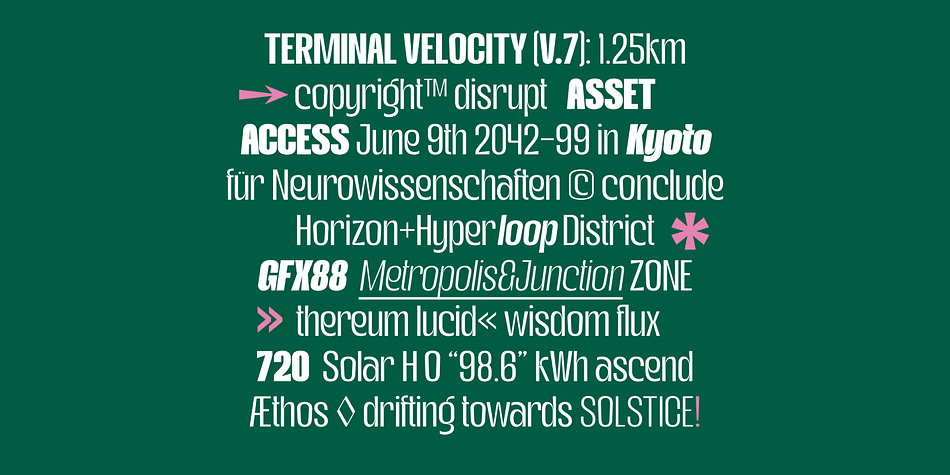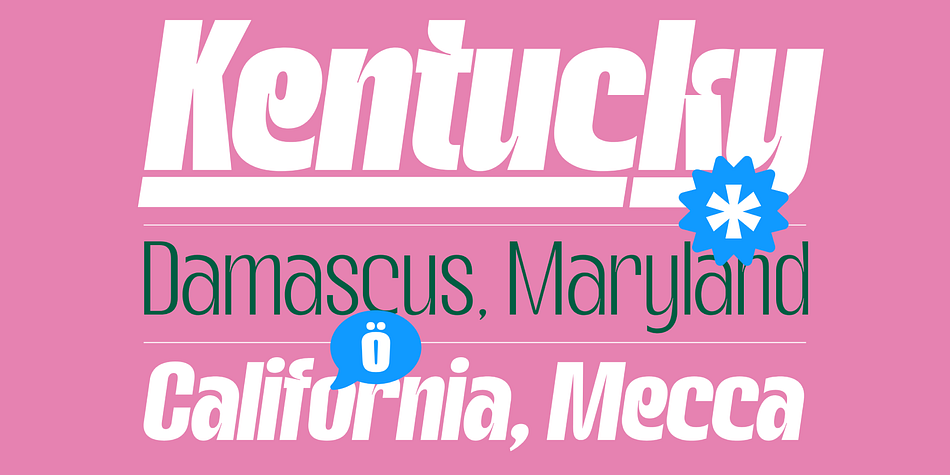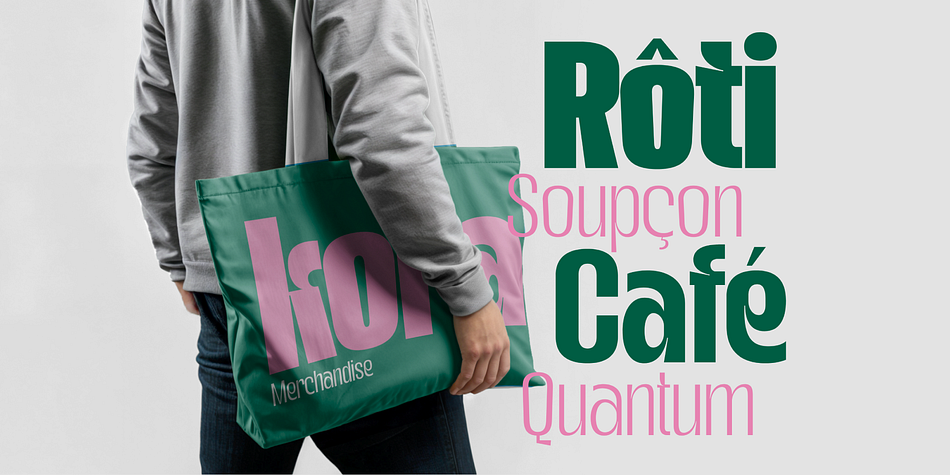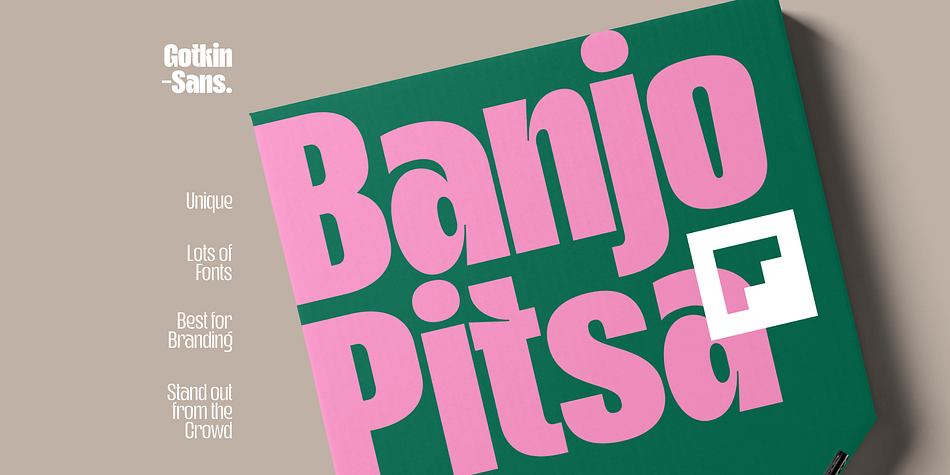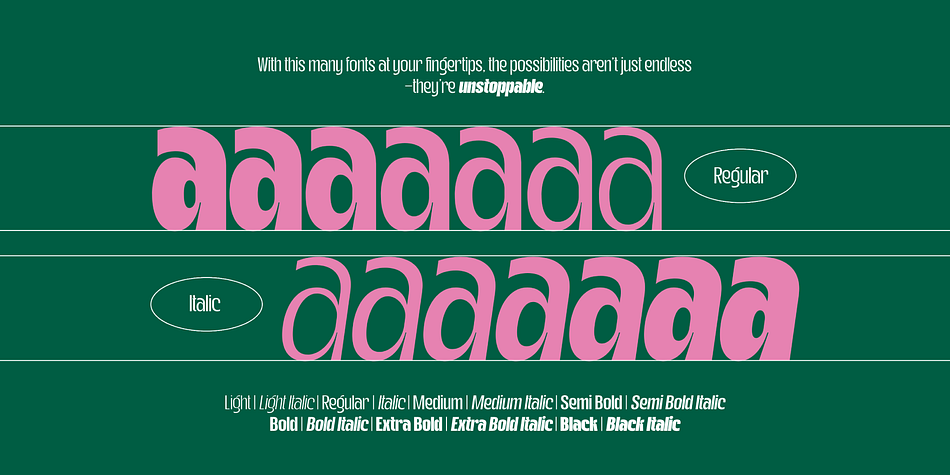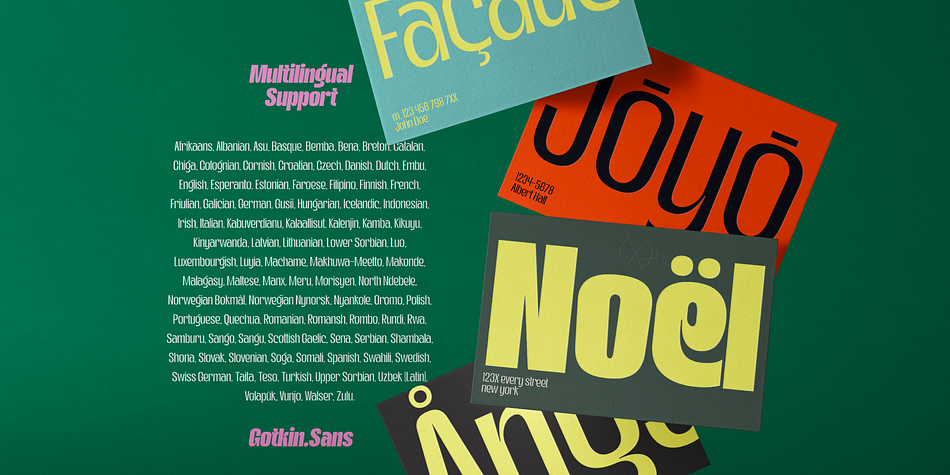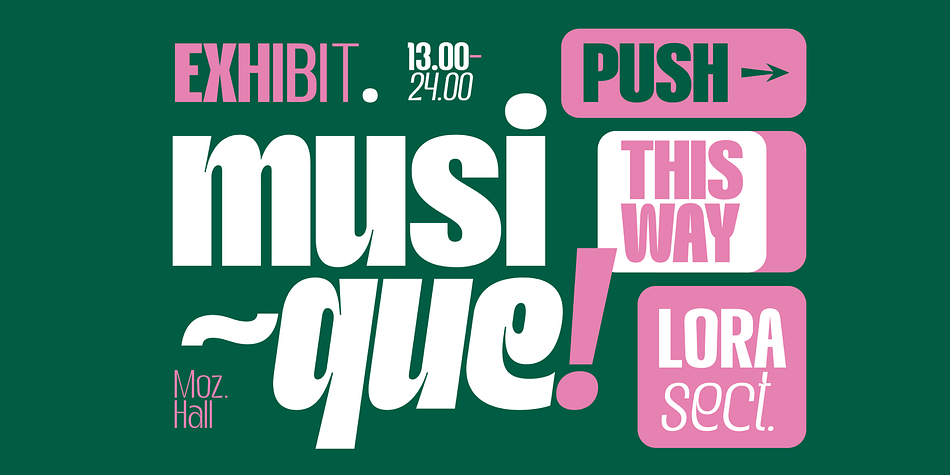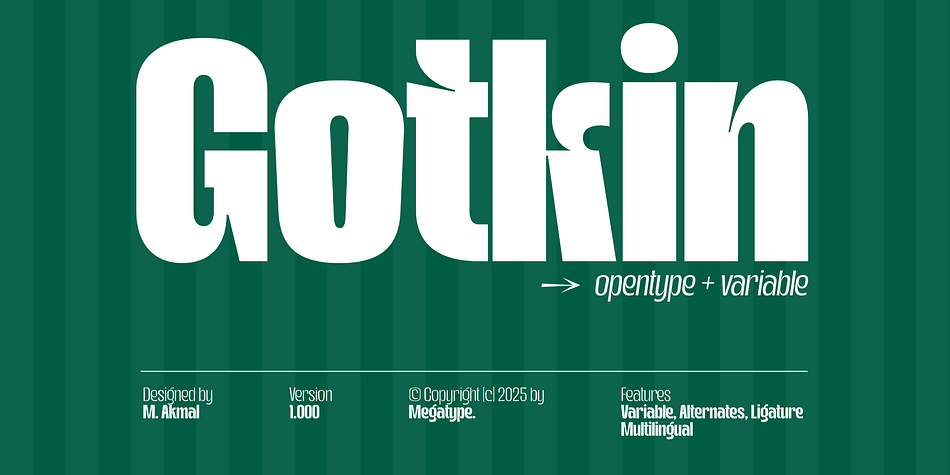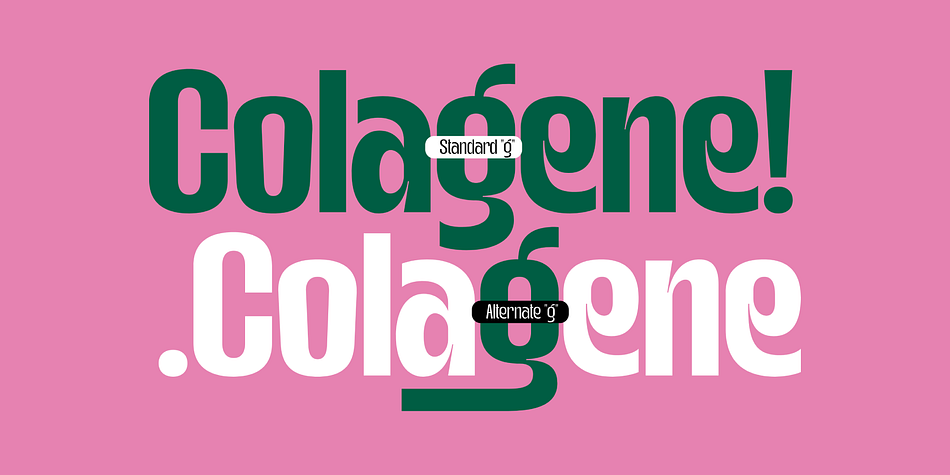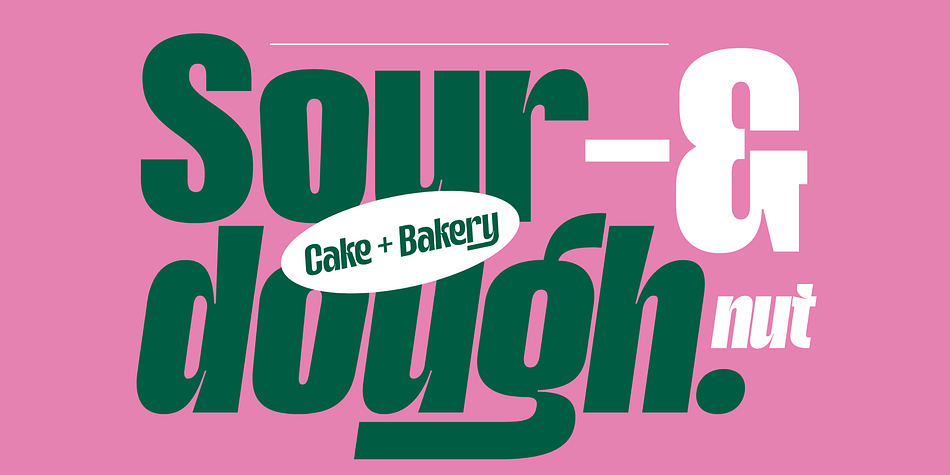
Gotkin
Gotkin is a sans serif font family. This typeface has fifteen styles and was published by Mega Type.
Gotkin is a strong and sophisticated sans serif font family designed to convey modern strength and dynamism. Gotkin is designed with soft curves and its bold Geometric to add warmth yet boldness, making it ideal for corporate branding, digital interfaces and editorial designs. The font expands its use by providing weights ranging from light to black. And features beautiful italics, excellent weights, alternates, ligatures and extensive language support.
Gotkin has clean lines on the font that ensure readability in all formats, from headlines to body text, offering a versatile solution for professionals seeking clarity and style. Gotkin also comes with a Variable font version to make it easy for designers to explore and refine beautiful designs.
Gotkin excels in display settings such as headlines, titles, branding projects, logo designs, packaging, magazine titles, advertisements, short or long texts.